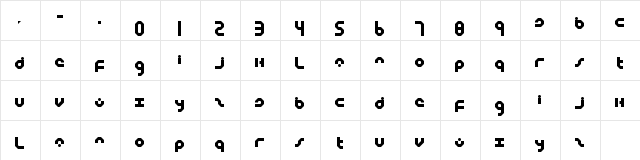
Multiplex Regular
| Designer | floor-3013 |
Design Context for Multiplex Typeface
Multiplex is a composed and adaptable typeface that performs quietly and consistently across a wide range of design contexts.